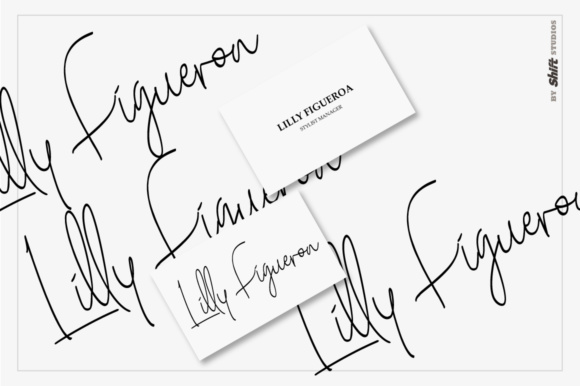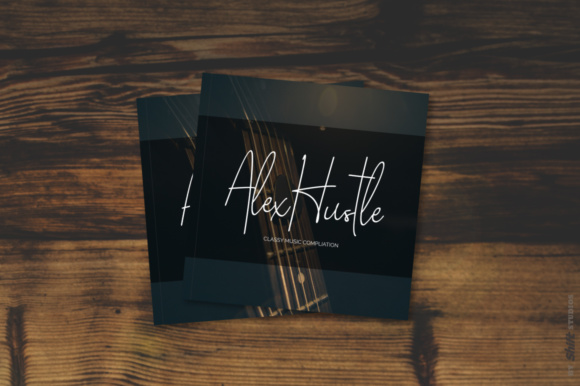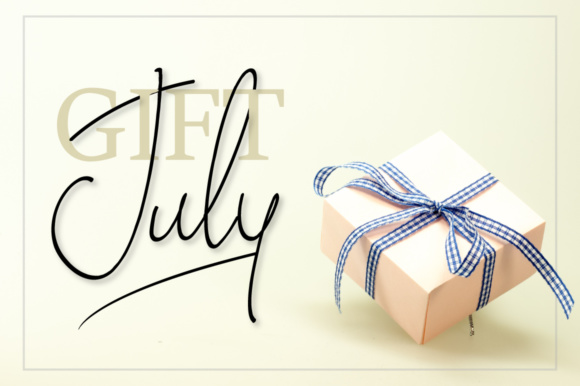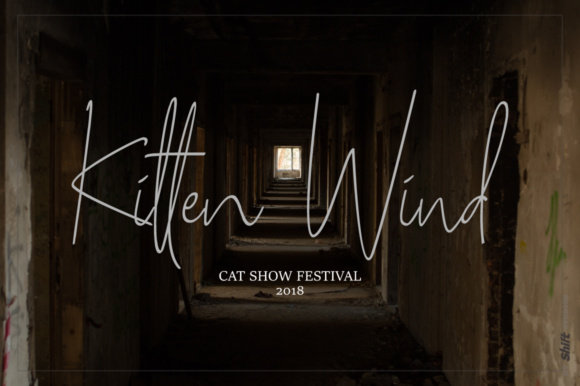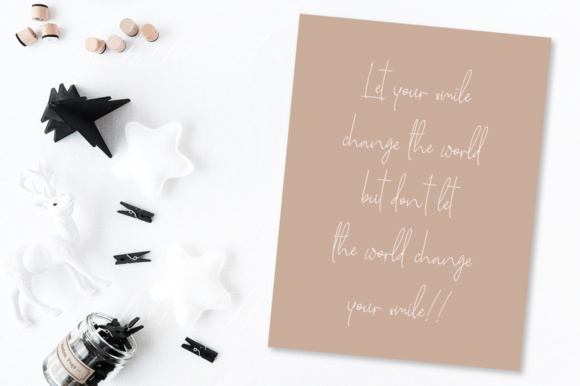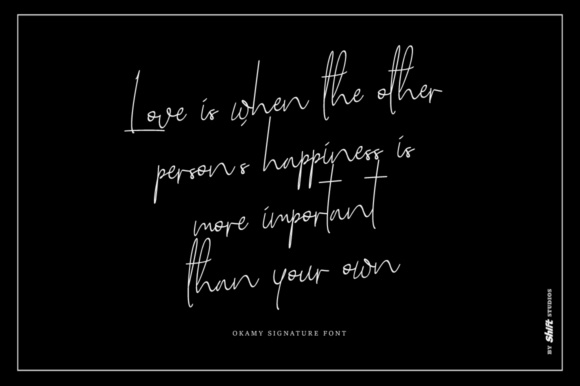
Okamy Font
About Okamy Font
Okamy is a unique signature font, ideal for giving your designs a relaxed yet stylish feel. This font is specifically developed for designs that need to have a ton of stylistic appeal with a laissez-faire appeal.